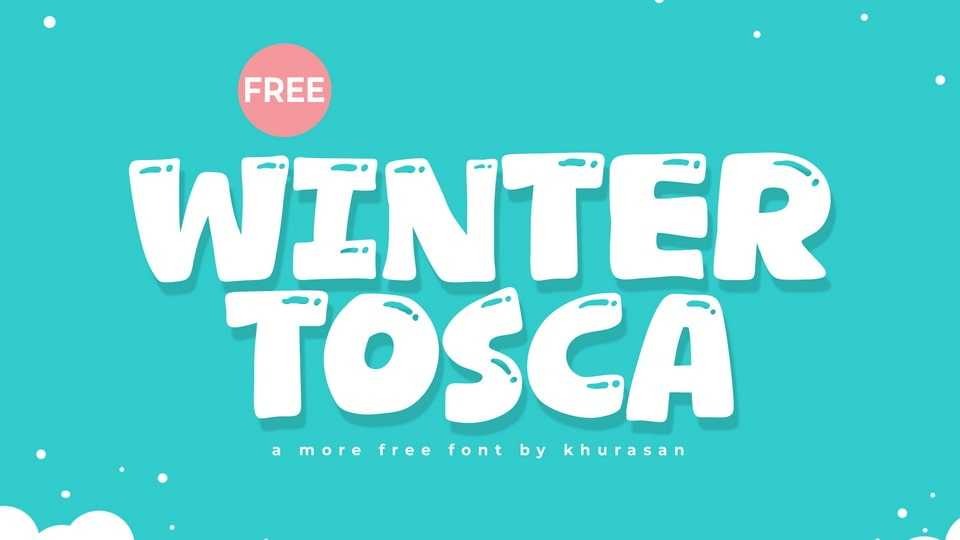
Download Winter Tosca font, a bold, rounded display typeface with a strong yet playful character. Its chunky letterforms and soft corners create a confident, friendly presence that instantly grabs attention while staying approachable and fun.